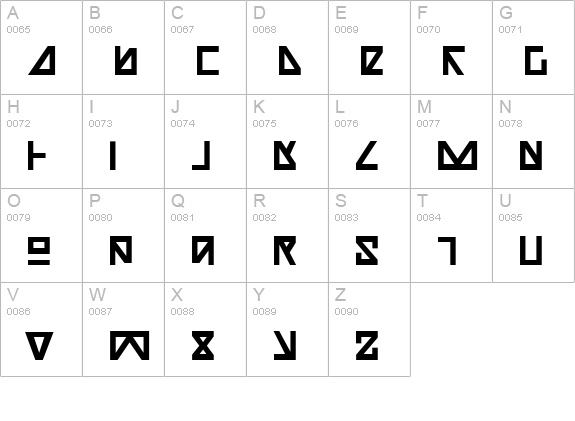
Nick Turbo Bold is a strong, high-contrast variant in the Nick typeface family \xE2\x80\x94 well suited to headlines, attention-grabbing titles, and strong calls-to-action.
Nick Turbo Bold is a sleek and modern typeface that exudes confidence and strength. With its bold and striking appearance, this font is perfect for making a statement in any design project. Whether you are creating posters, logos, or branding materials, Nick Turbo Bold will command attention and leave a lasting impression. The best part? Nick Turbo Bold is available for free download at FontsMarket.com. This means you can easily add this powerful font to your collection without any cost, allowing you to elevate your designs without breaking the bank. Don't miss out on this opportunity to enhance your projects with the impactful and dynamic Nick Turbo Bold font - download it today and start making a bold statement!